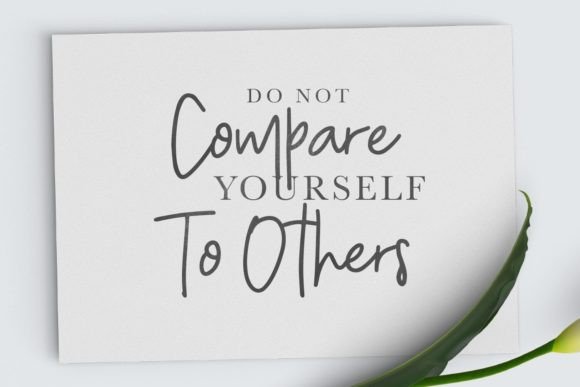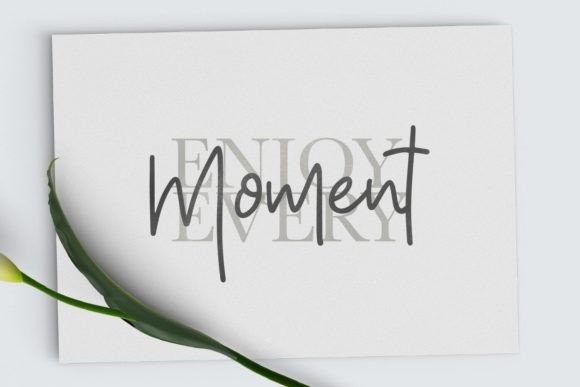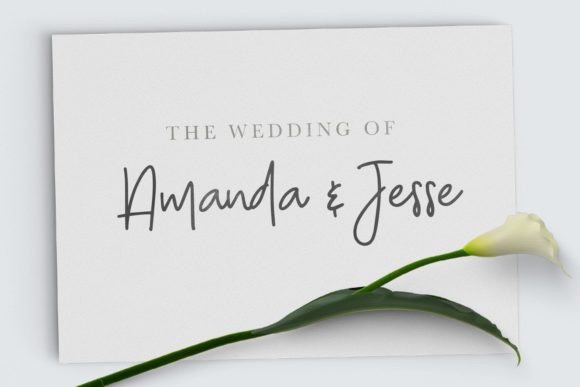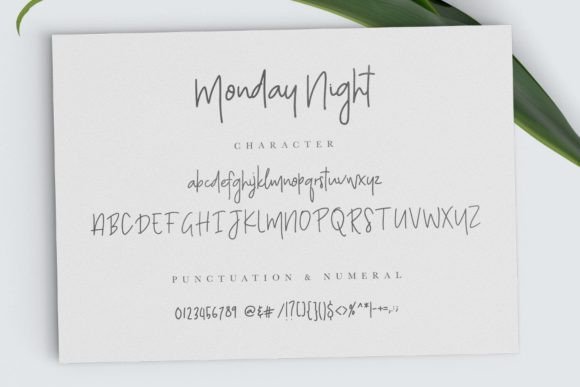
Introduction to Monday Night Font
Do you remember that moment when a beautiful font inspired your entire creative project? For many designers, it’s a spark that ignites a whole new level of creativity. For us, it’s the Monday Night Font that has captured our hearts and imagination. This stunning monoline script font is not just a pretty face; it’s a versatile design resource that can elevate your branding, product designs, and even wedding invitations to the next level.
Whether you’re working on a free download project or creating high-quality designs for clients, the Monday Night Font is an excellent choice. Its elegant and sophisticated style makes it perfect for a wide range of applications, from logos and product packaging to text overlays and social media graphics. With a transparent background, you can easily place it over any background image, giving you endless creative possibilities.
Key Features of Monday Night Font
- Unique, hand-crafted design for a creative project, ideal for use in modern and sleek branding
- High-quality font with a transparent background, allowing for versatile usage and easy customization
- Includes 20 unique glyphs and characters, perfect for adding a touch of sophistication to any design
- Designed at 1000px resolution, ensuring crisp and clear display on high-resolution screens and prints
- Perfect for use in logos, typography, and other design elements, making it a valuable addition to any design library
Honest Review: Monday Night Font
As a designer, I’m always on the lookout for high-quality fonts that can elevate my creative projects. The Monday Night Font has caught my attention, and I’m excited to share my honest review.
- Unique design style: The Monday Night Font has a distinctive, modern aesthetic that sets it apart from other fonts.
- High-quality glyphs: The font’s glyphs are well-crafted and display smooth lines, making it perfect for a variety of design applications.
- Transparent background: The font’s transparent background makes it easy to combine with other design elements and create visually appealing compositions.
- Limited character set: The Monday Night Font’s character set is relatively small, which may limit its usability for certain design projects.
- Not suitable for body text: The font’s bold, modern style makes it more suitable for headlines and titles rather than body text.
Overall, I think the Monday Night Font is a great design resource for designers looking for a unique, high-quality font. While it has some limitations, its strengths make it a valuable addition to any design library. I recommend it for free download, but be aware of its limitations before using it in your next creative project.
Tips for Getting the Most Out of Monday Night Font
Use the Monday Night Font in conjunction with other design elements to create a cohesive and visually appealing design. Experiment with different font sizes and colors to add depth and interest to your project.
Common Use Cases for Monday Night Font
The Monday Night Font is perfect for use in logos, business cards, and other marketing materials. It’s also great for use in presentations, documents, and other creative projects where a high-quality font is needed.
Alternatives to Monday Night Font
Pacifico Font is a beautiful, high-quality script font that can add a touch of elegance to any creative project. It is perfect for wedding invitations, social media graphics, and other design elements that require a sophisticated look. When to use: For projects that need a luxurious and modern feel. How it compares to Monday Night Font: While Pacifico Font is more elegant and refined, Monday Night Font has a more casual and playful vibe.